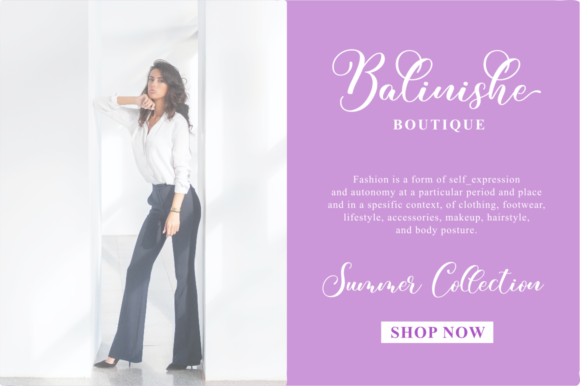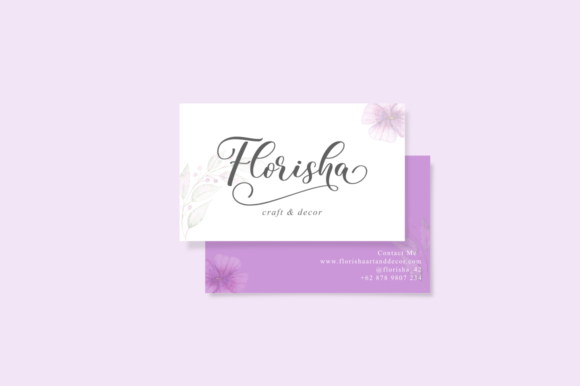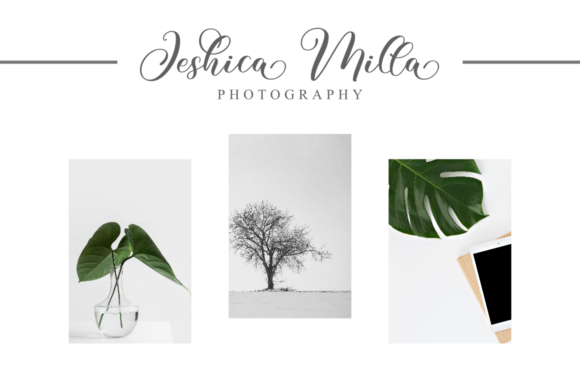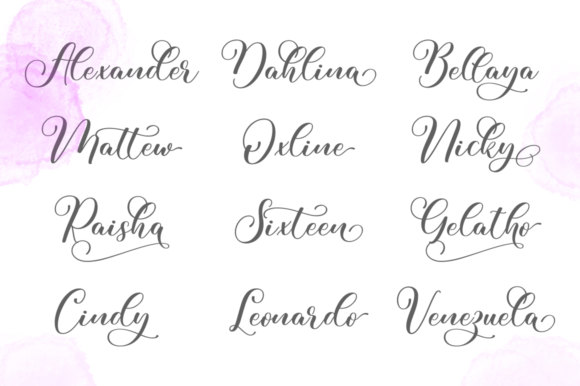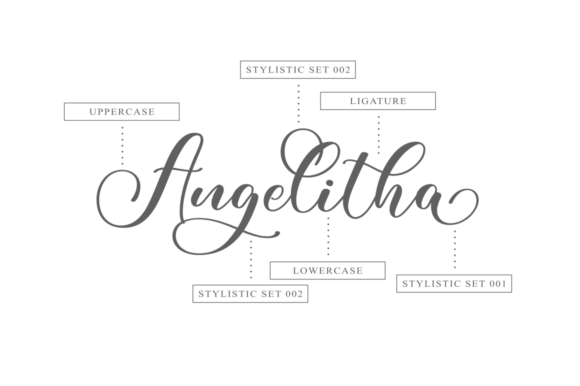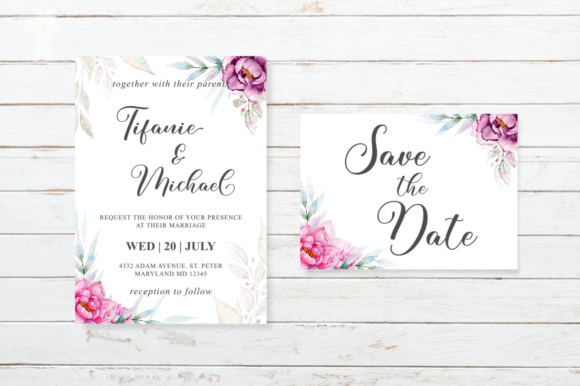
Introduction to Mochalisa Font
Have you ever found yourself stuck in a design rut, desperately searching for that one special element to elevate your creative project from good to great? As designers, we’ve all been there – pouring over countless resources, scouring the web for the perfect font to give our work that extra oomph. And then, it happens – you stumble upon something truly special, something that makes your heart skip a beat and your designs shine like never before.
Enter Mochalisa Font, a stunning light handwritten font that’s about to revolutionize the way you approach your design projects. With its unique feel and high-quality aesthetic, this font is sure to add a touch of luxury to even the most mundane of designs, making it the ultimate design resource for creatives of all levels.
Key Features of Mochalisa Font
- Unique, playful design with a modern twist, ideal for digital and print media
Honest Review: Mochalisa Font
I recently stumbled upon the Mochalisa Font and was excited to dive in and see what it has to offer. As a designer, I’m always on the lookout for high-quality, free download design resources that can elevate my creative projects.
After using the Mochalisa Font, I can confidently say that it’s a solid addition to any designer’s toolkit. ✨ Here are some of the things that work well:
- Easy to read, even at small font sizes
- Wide range of weights and styles to choose from
- Transparent background makes it perfect for web design
While the Mochalisa Font is a great resource, there are a few limitations to be aware of: ⚠️
- Some of the characters may not be suitable for use in certain languages
- Lack of extensive language support
Overall, I’m impressed with the Mochalisa Font and would definitely recommend it to fellow designers. It’s a versatile, high-quality font that can add a touch of elegance to any creative project.
Tips for Getting the Most Out of Mochalisa Font
To get the most out of the Mochalisa Font, experiment with different font sizes, colors, and combinations to create unique and visually appealing designs. The font’s versatility makes it suitable for a wide range of creative projects, from graphic design to digital art.
Common Use Cases for Mochalisa Font
The Mochalisa Font is commonly used in graphic design, digital art, and creative projects that require a high quality and unique font. Its transparent background feature makes it ideal for use in templates and designs that require a seamless integration with other design elements.